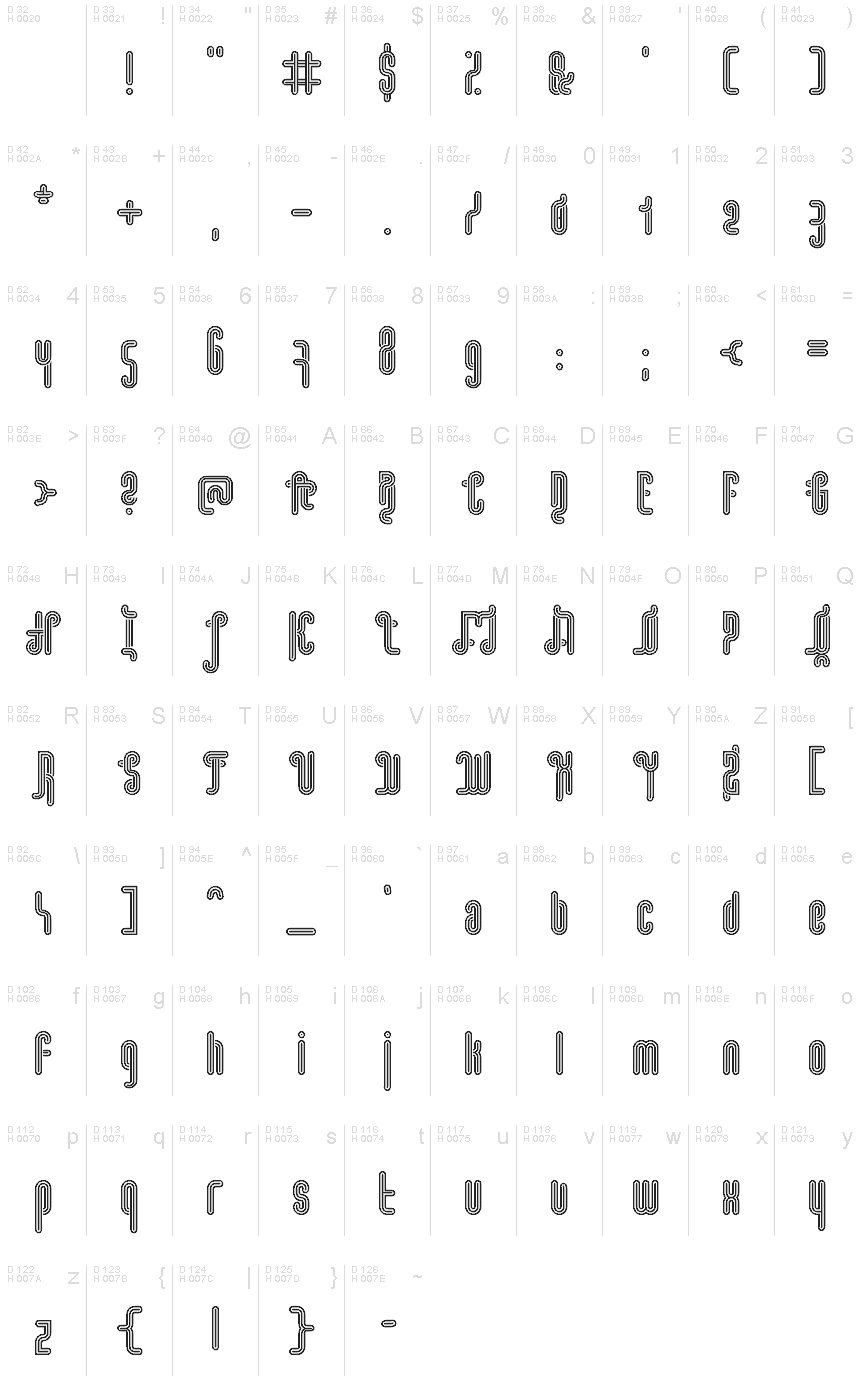
SD Questra Regular
SD Questra font is a masterfully designed display font with modernist influences by Sebas Perez. The intricate ornamental characters have a mesmerizing geometric design pattern decorated further with retro elements. This condensed typeface takes up less horizontal space and can be used whenever you want to create an emphasis without using much text.
The free decorative condensed font instantly elevates typography on book covers, magazine covers, product packaging designs, poster titles, company letterhead or even business cards. It will look very good on coffee branding, coffee shop sign or menu textual elements such as subtitles and headings.
Designer description: Inspired in DB Questura